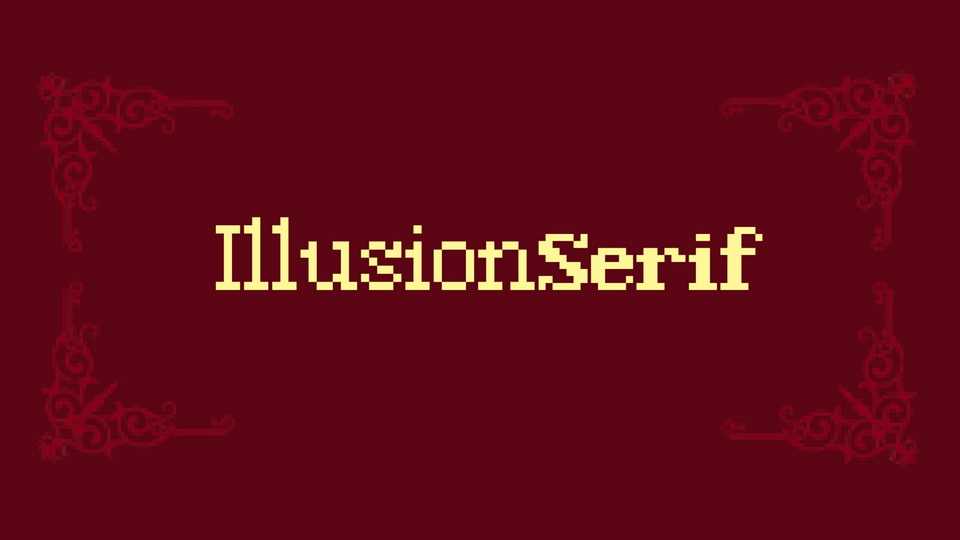
Download Illusion Serif font, a decorative pixel typeface with four styles. Illusion Serif is perfect for retro or contemporary displays, games, web design, branding and pixel art.
Designer: Steven Liu